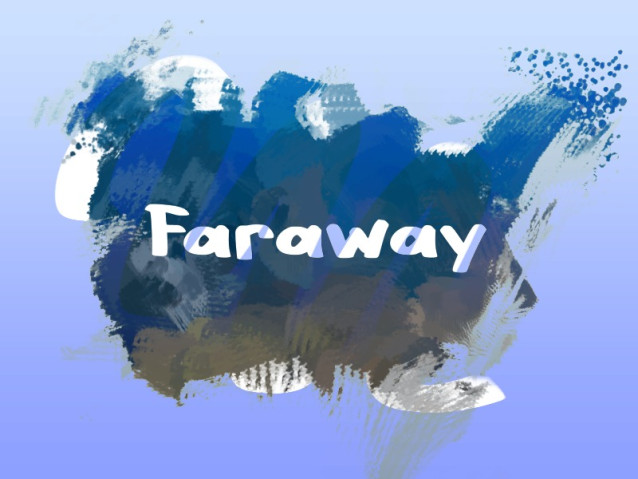
Faraway Font
Faraway Font is a simple and friendly handwritten font. Its natural and unique style makes it incredibly fitting to a large pool of designs. The only limit is your imagination!